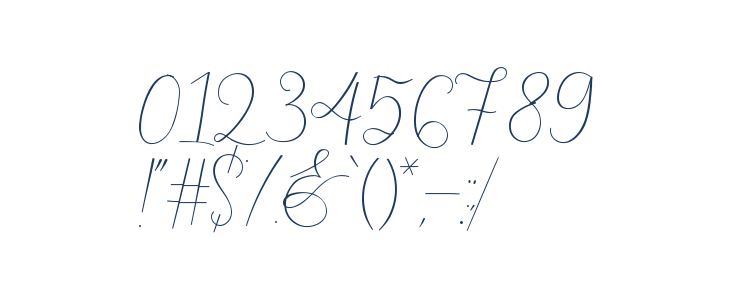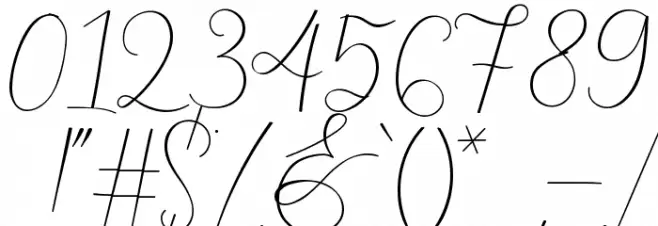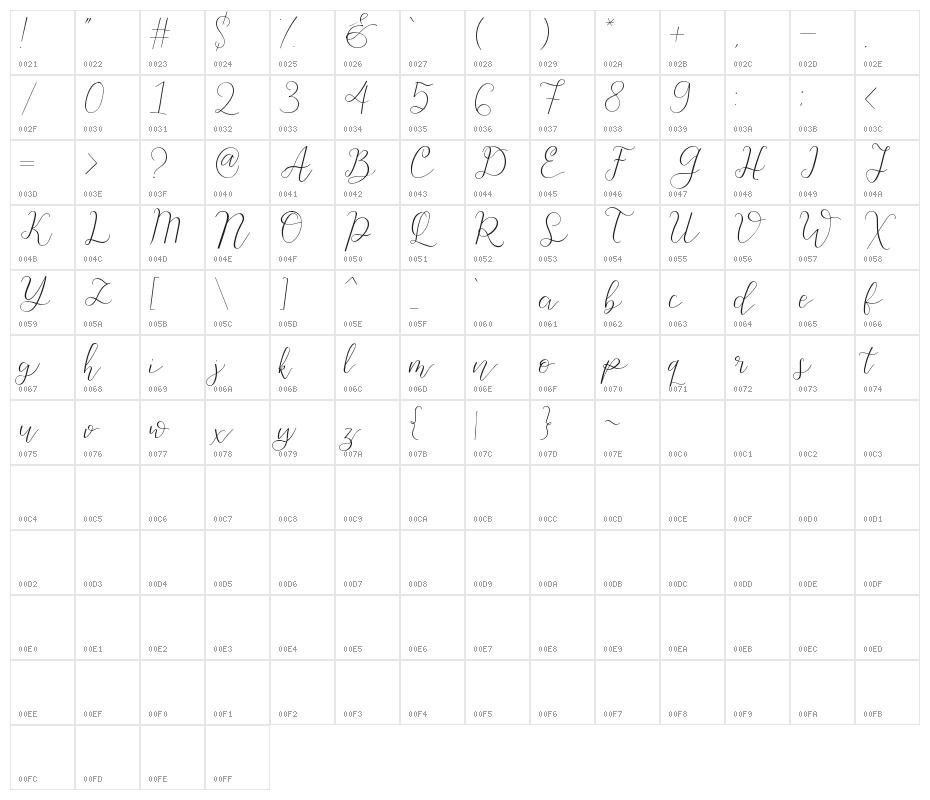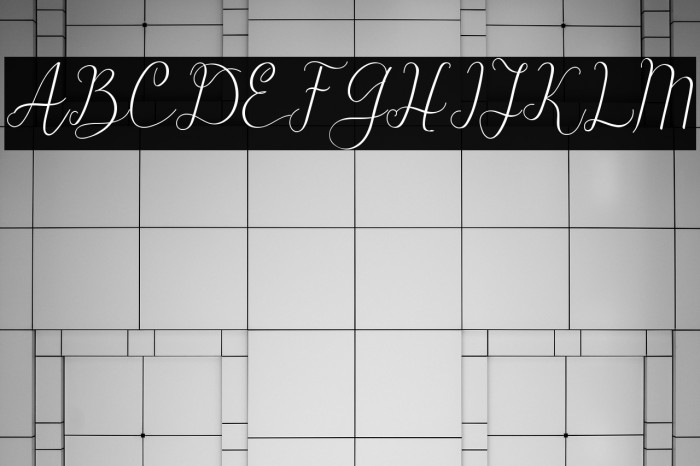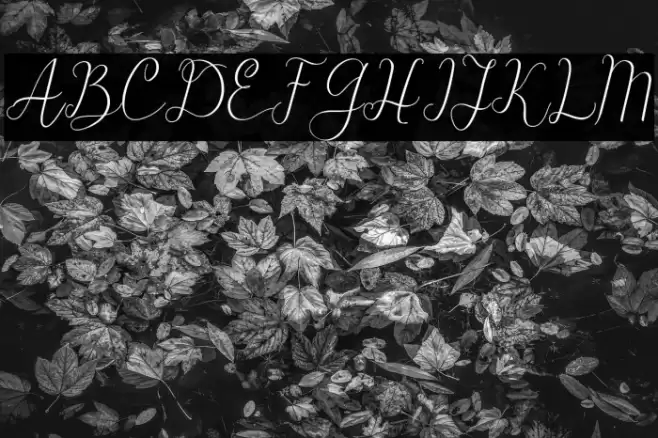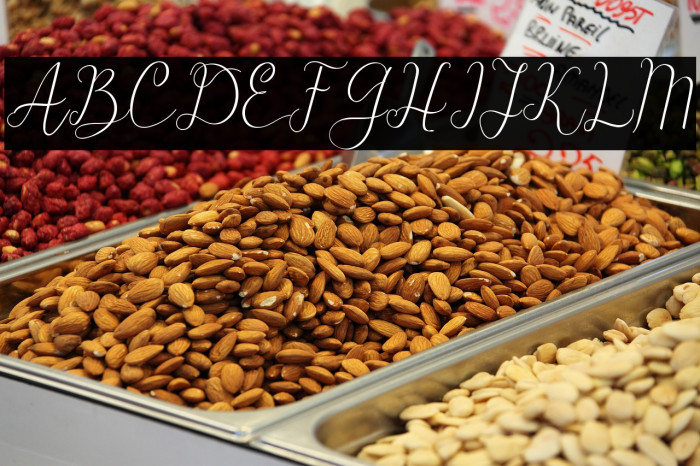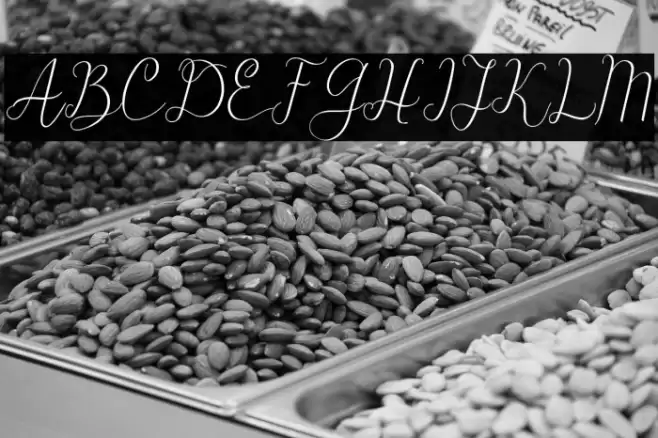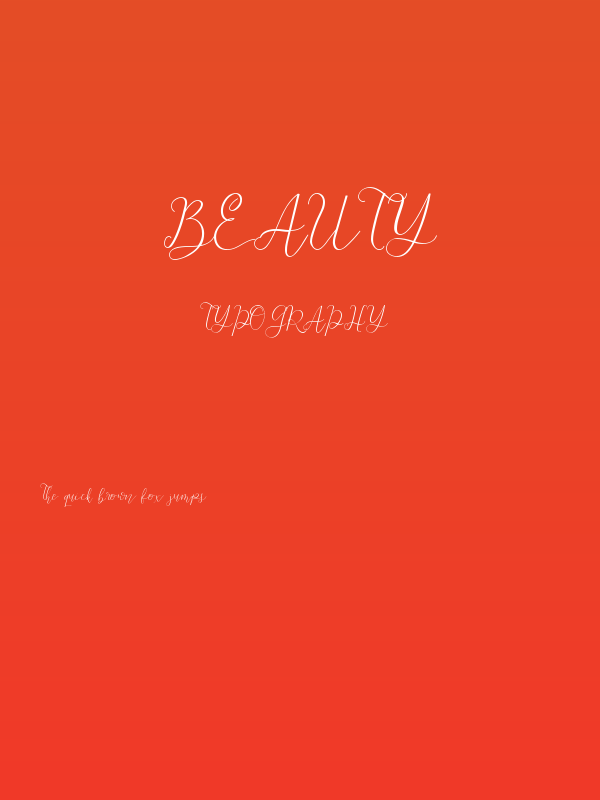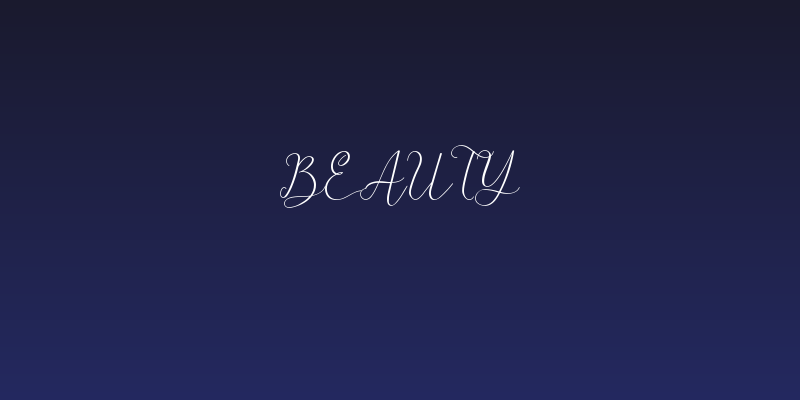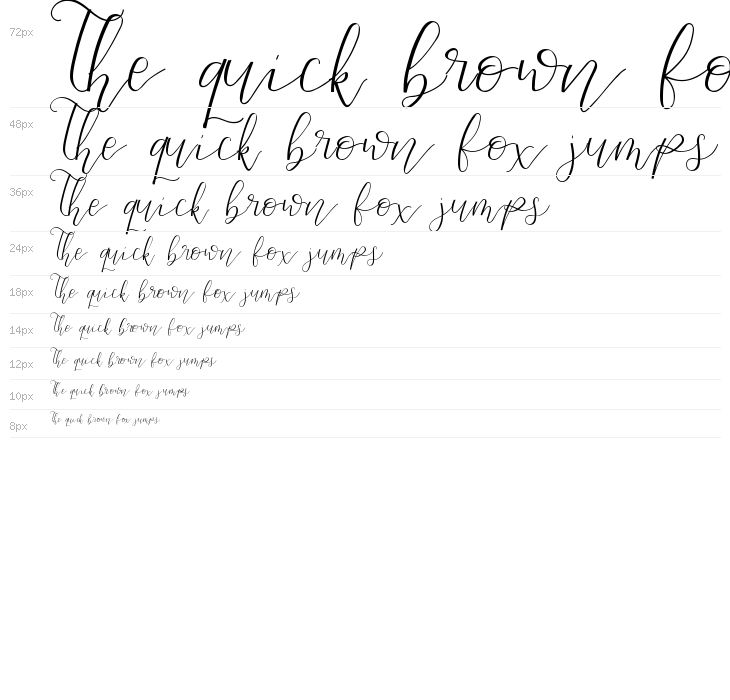
Beauty Font
Beauty Description
This elegant script font features a flowing, cursive style with delicate loops and swashes that give it a sophisticated and graceful appearance. The uppercase letters are characterized by their intricate flourishes, while the lowercase letters maintain a consistent, smooth flow. The numerals are uniquely styled to match the overall aesthetic, with curves and loops that add to the font's charm. Special characters are thoughtfully designed to complement the letterforms, making this font versatile for various design needs.
| Proposed Projects | Ideal for wedding invitations, greeting cards, branding, and elegant logo designs. |